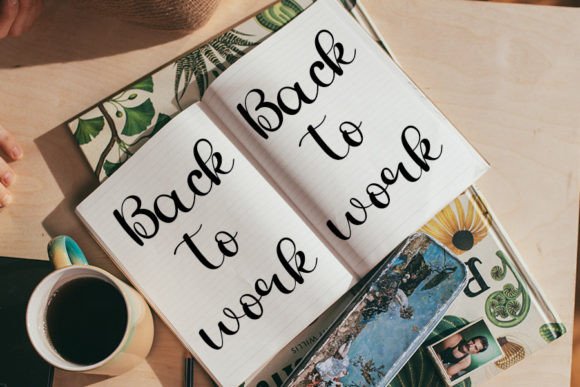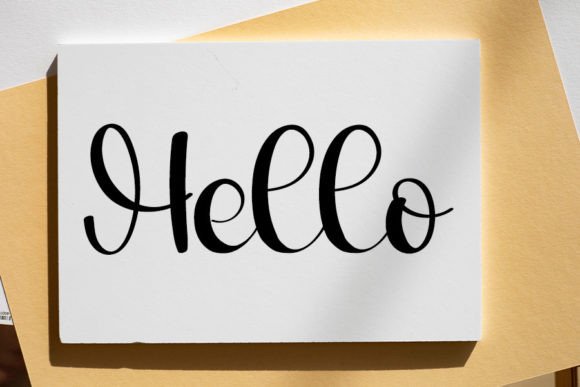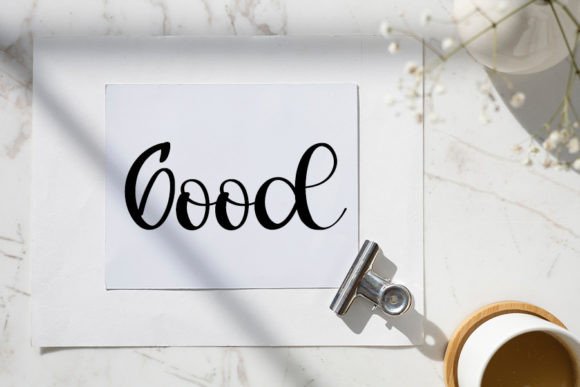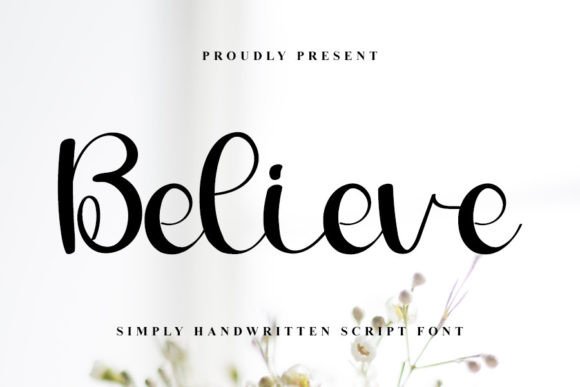
Discover the Elegance of Believe Font: Elevate Your Designs with Timeless Style
Are you on the hunt for a font that exudes elegance, sophistication, and a touch of timeless charm? Look no further than the Believe Font. This stunning handwritten font is designed to add a dash of beauty to your favorite projects, making it a must-have for designers and crafters alike. With its incredibly distinct style, Believe Font is sure to capture your heart and inspire your creativity.
The Characteristics of Believe Font
Believe Font is a neat and beautiful handwritten font that boasts an elegant touch, setting it apart from other fonts in its class. Its unique characteristics make it perfect for a wide range of design projects, from wedding invitations and branding materials to social media graphics and more. Here are just a few of the key features that make Believe Font so special:
- Elegant and Refined: Believe Font features a sophisticated and elegant design that’s perfect for creating high-end visuals.
- Handwritten with Love: This font is carefully crafted to mimic the look and feel of handwritten text, adding a personal touch to your designs.
- Distinct and Timeless: With its unique style and classic charm, Believe Font is sure to stand the test of time and remain a staple in your design arsenal.
Why Choose Believe Font?
So, what sets Believe Font apart from other fonts on the market? Here are just a few reasons why designers and crafters are falling in love with this beautiful font:
- Versatility: Believe Font can be used for a wide range of design projects, from formal events to casual social media graphics.
- Easy to Read: Despite its elegant and refined design, Believe Font remains easy to read, making it perfect for body text and headlines.
- Customizable: With its extensive character set and support for multiple languages, Believe Font can be tailored to suit your specific design needs.
How to Use Believe Font in Your Designs
Ready to fall in love with Believe Font? Here are a few tips for incorporating this stunning font into your designs:
- Pair it with Bold Colors: Believe Font looks stunning when paired with bold, bright colors. Try combining it with a vibrant background or accent color to create a striking visual.
- Use it for Headlines: With its elegant and refined design, Believe Font is perfect for headlines and titles. Use it to add a touch of sophistication to your designs.
- Experiment with Textures: Believe Font looks amazing when paired with textures and patterns. Try adding a subtle texture or background to give your designs an extra layer of depth.
In conclusion, Believe Font is a beautiful and elegant handwritten font that’s perfect for designers and crafters looking to add a touch of timeless style to their projects. With its incredibly distinct and refined design, Believe Font is sure to capture your heart and inspire your creativity. So why wait? Download Believe Font today and start creating spectacular designs that will leave a lasting impression!
Whether you’re a seasoned designer or a crafty DIY enthusiast, Believe Font is a must-have addition to your design arsenal. Its versatility, readability, and customizability make it the perfect choice for a wide range of design projects. So go ahead, fall in love with Believe Font, and elevate your designs to new heights!